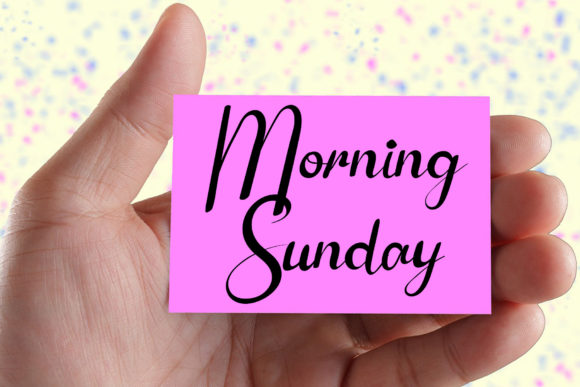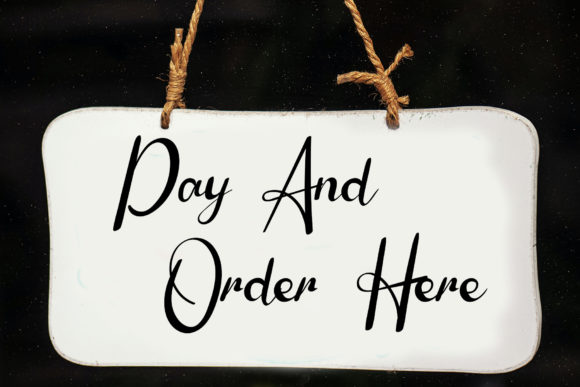
Camping Font
db-ku.com - Script & Handwritten -- Camping is a cursive and well balanced handwritten font. Dainty and joyful, this font will be ideal for writing wedding invitations, cards or any other design that may need a romantic, personalized touch!